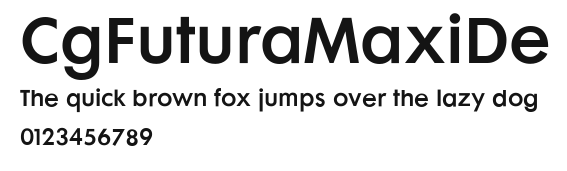
About CgFuturaMaxiDe.ttf
CgFuturaMaxiDe.ttf is a modern, elegant sans-serif font designed for ultimate readability and visual harmony. Perfect for branding, headlines, web design, and print materials.